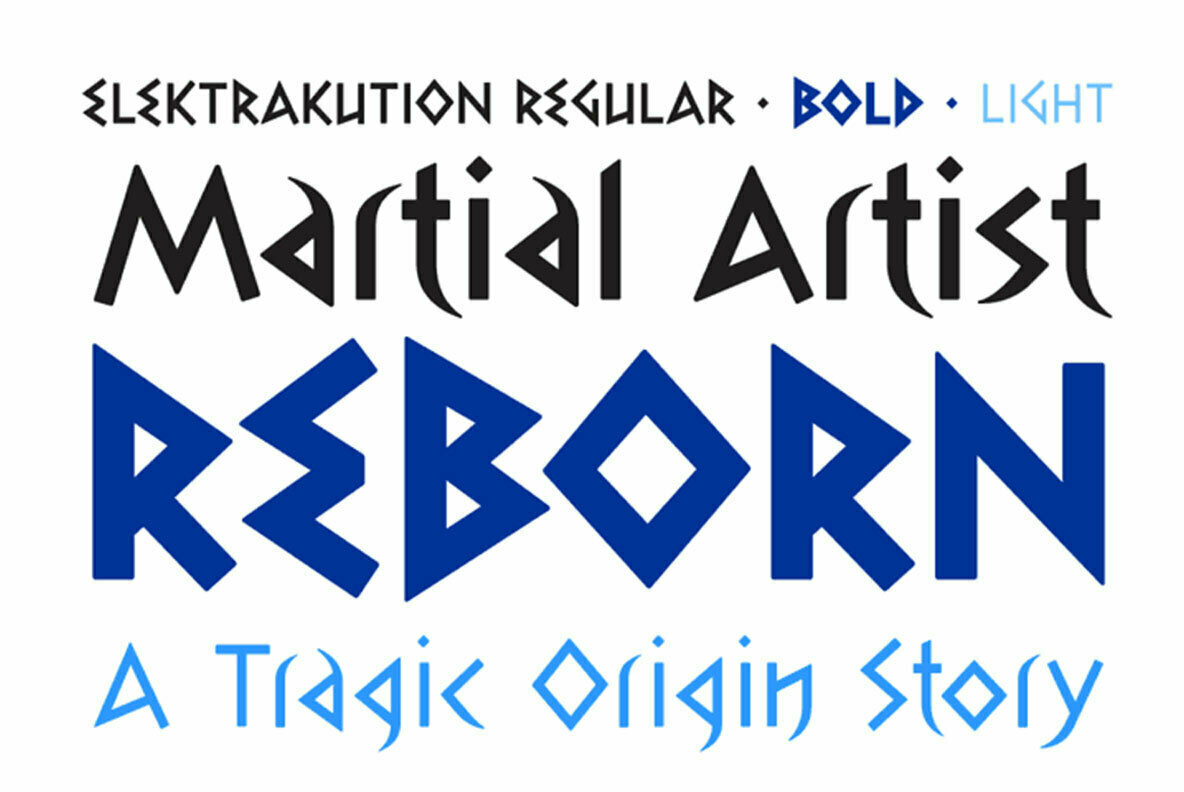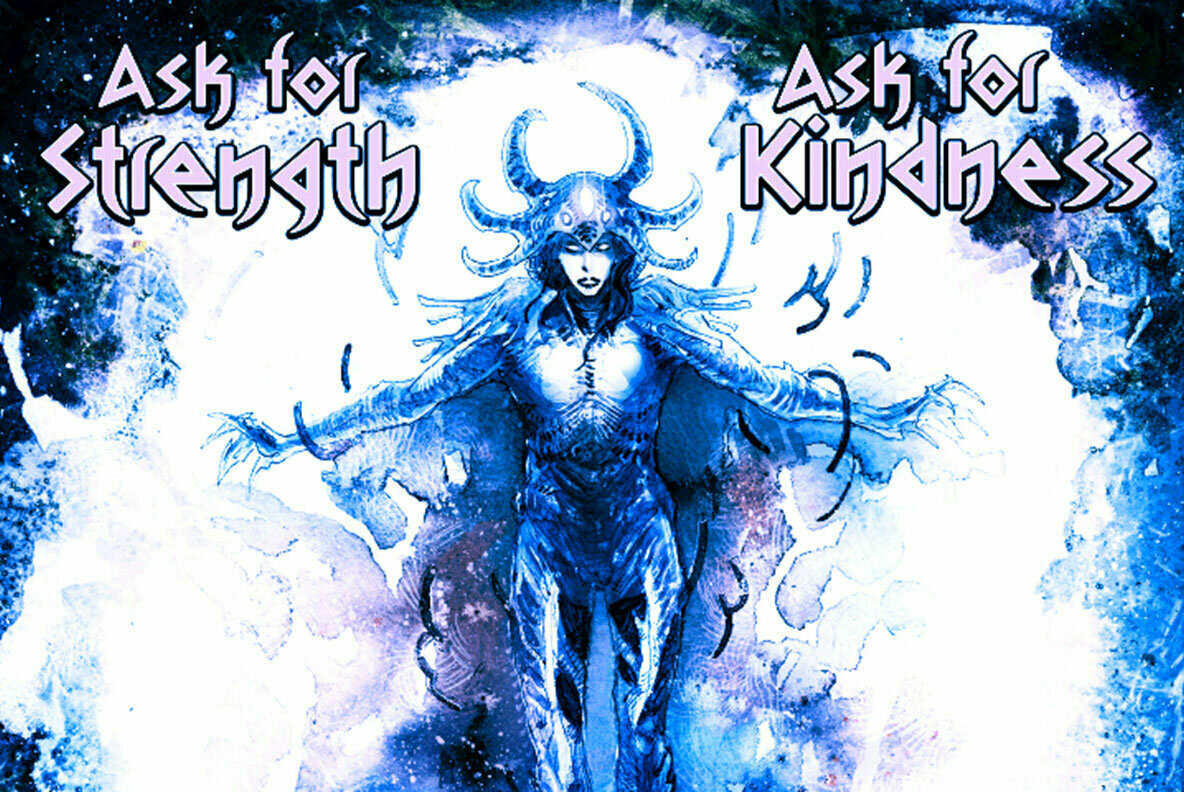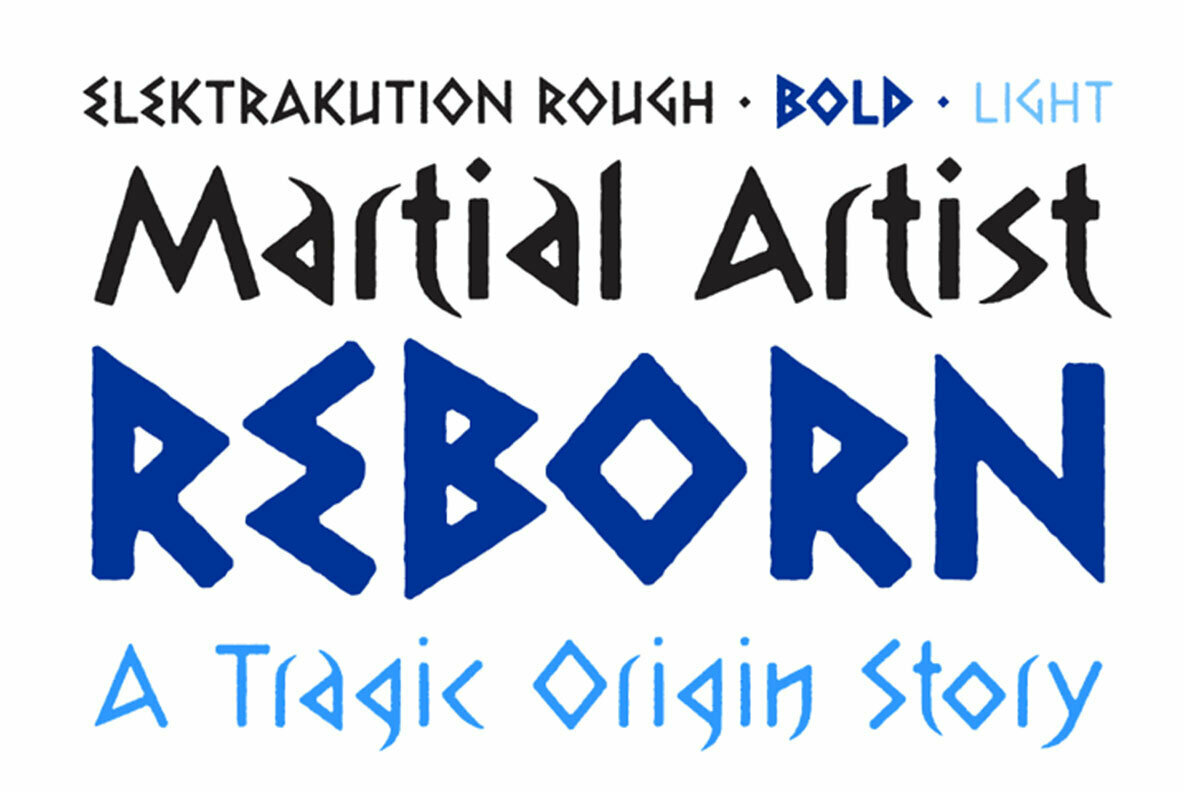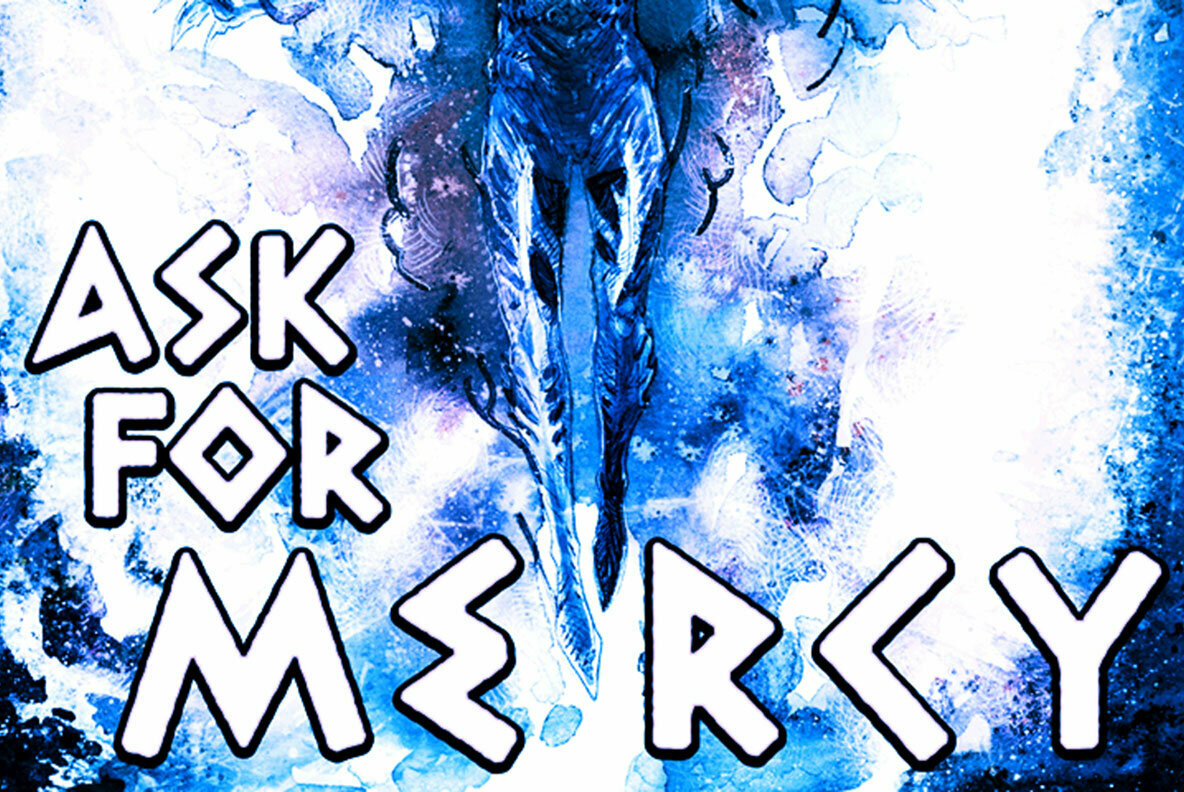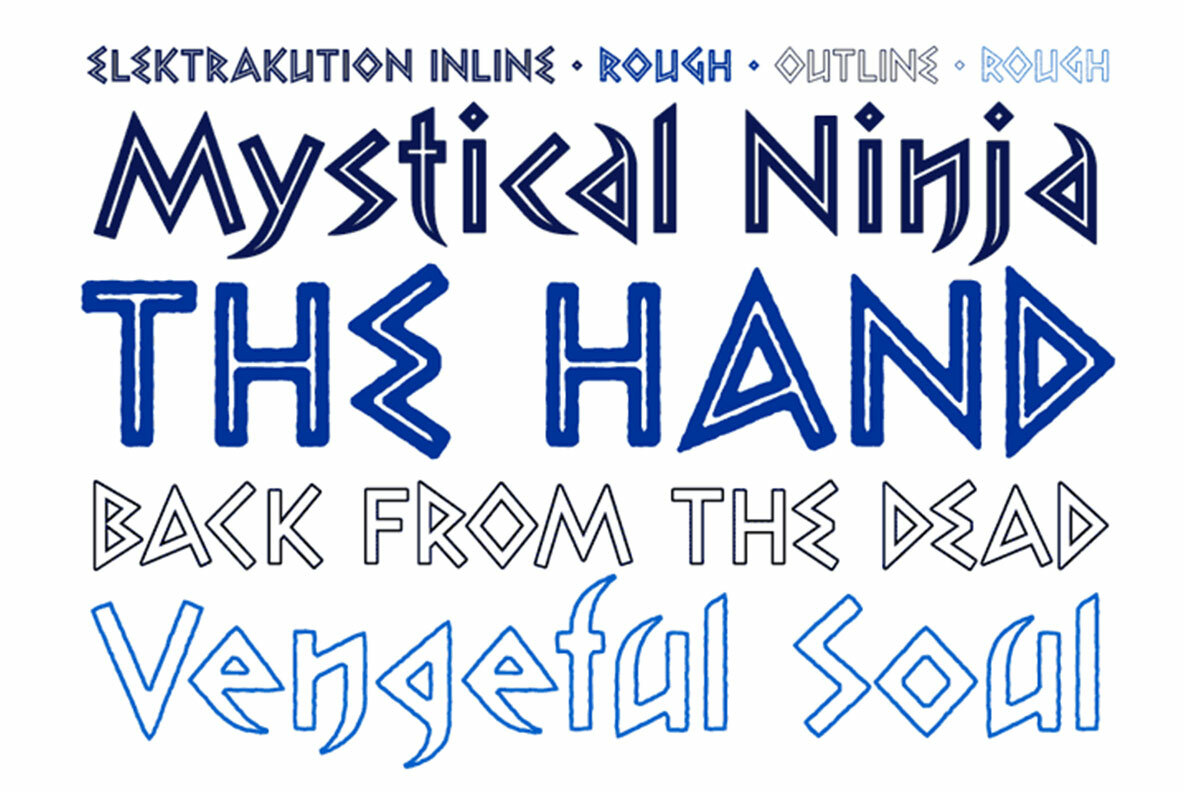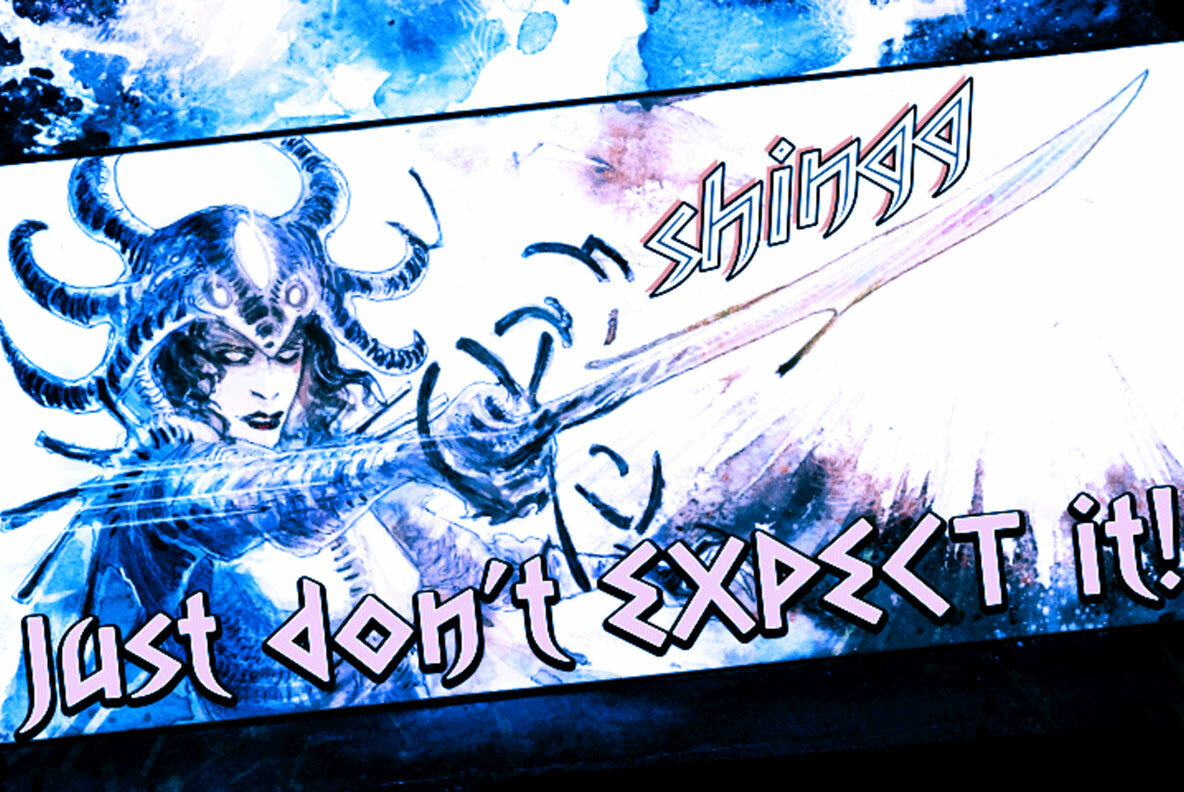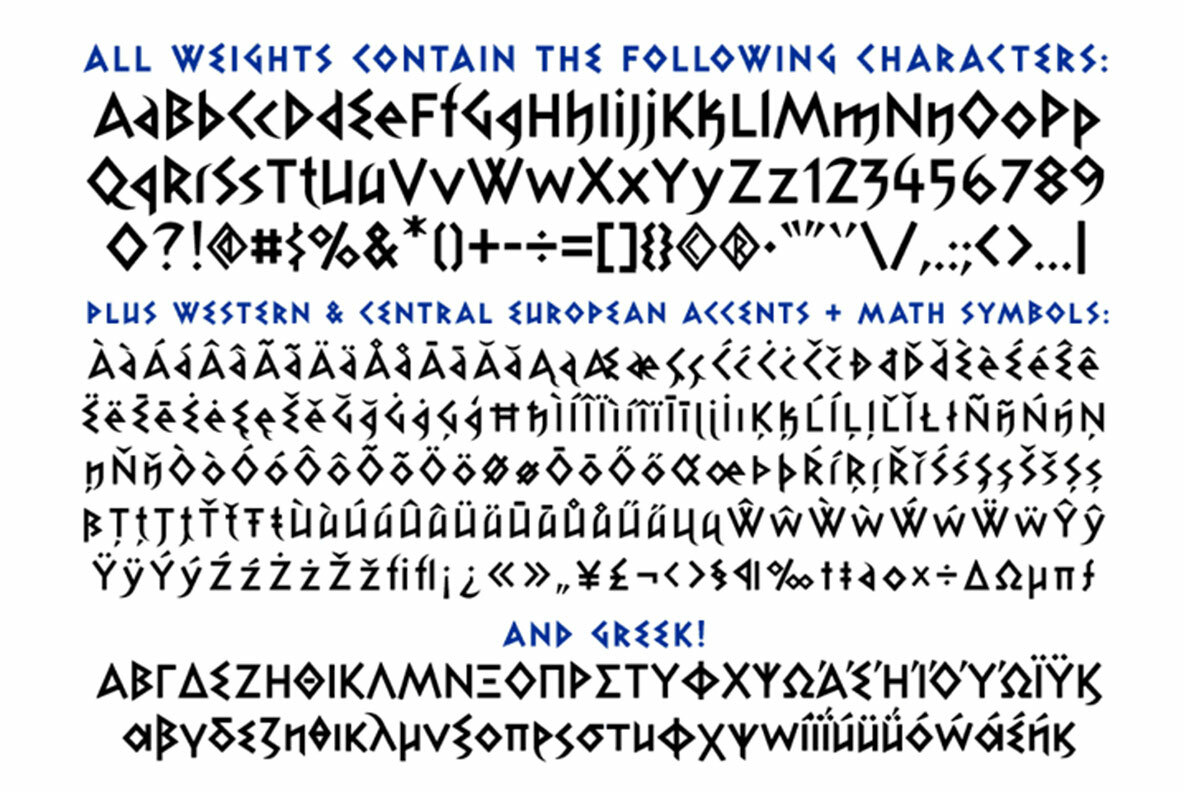
Elektrakution Font
SHE’S DEAD, FRANK
It’s the year 1991, BC (Before Comicraft) when REM were still making records and Frank Miller’s memorable run on Marvel Comics’ DAREDEVIL was just over ten years old. Comicraft’s Richard Starkings found himself working in Anaheim, California for Graphitti Designs. Graphitti had produced the first hardcover edition of Miller’s Batman tale, DARK KNIGHT RETURNS and was now putting together the sequel to Miller’s DAREDEVIL — ELEKTRA LIVES AGAIN!
Richard was not engaged to letter this book, the pages of Frank’s incredible original art that came through Graphitti’s studio were already lettered by Marvel Stalwart, Jim Novak. However, there were some cover elements that needed to be added, based on the logo originally rendered by Frank’s brother, Steve.
Starkings set about the task of creating an alphabet that could be used to develop Steve’s idea for the trade dress -- the cover elements, the back cover copy and credits on the interior pages. This was long before Macintosh computers and font programs made this work considerably easier, so Rich sat down with a pencil and a sheet of vellum and rendered an alphabet that could be used as the basis for the text that was needed... Those sketches have languished in a drawer for nearly thirty years, but now, finally, Comicraft’s John Roshell has dusted off those old letterforms and Elektrakuted a font based on those designs, a font we HAD to call ELEKTRAKUTION!
As for Elektra; she’s dead, Frank.